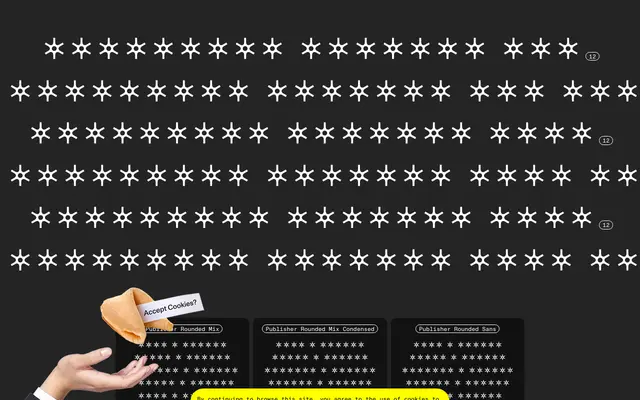
Publisher Rounded
Dinamo Typefaces · Michelangelo Nigra, Fabian Harb, Marc Rouault
A proportionally spaced typewriter-inspired family from Dinamo, spanning Slab, Sans and a hybrid Mix across six weights with condensed variants and full variable font support.
Rooted in the typewriter genre but freed from its monospaced constraints, Publisher offers three distinct subfamilies: a classic Slab, a clean Sans and a playful Mix that blends both. All three share the same underlying skeleton, making it straightforward to combine them across a single project without visual inconsistency. Six weights with italics, condensed cuts for each subfamily and variable font packaging give the family a range of application rarely seen in typewriter-derived designs.
Publisher draws directly from the typewriter genre, offering a Slab subfamily alongside a Sans and a hybrid Mix, all sharing the same skeleton. The Slab roots and typewriter heritage place it squarely in the slab category, though the family's breadth spans styles that blur into sans-serif territory.